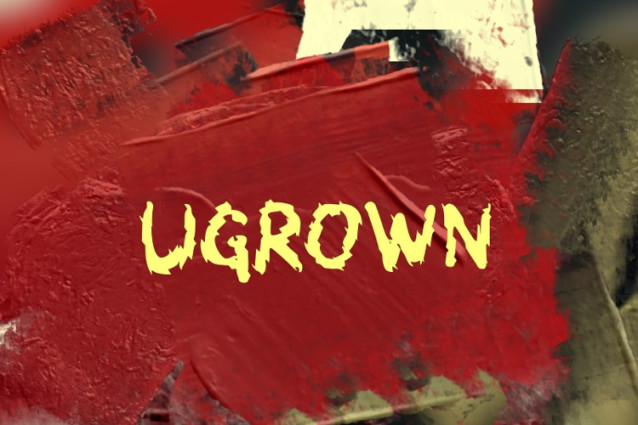
Ugrown Font
Ugrown Font, It would be a perfect choice to design posters, affiches, logos, t-shirt and magazine prints, eye-pleasing typographic designs and more.